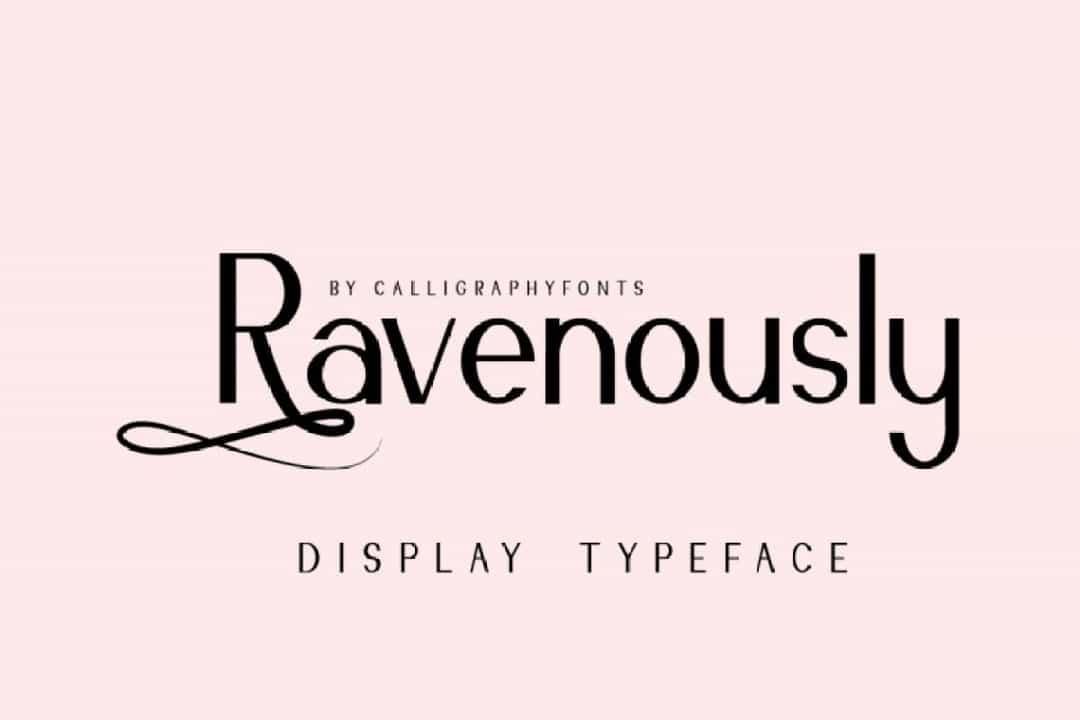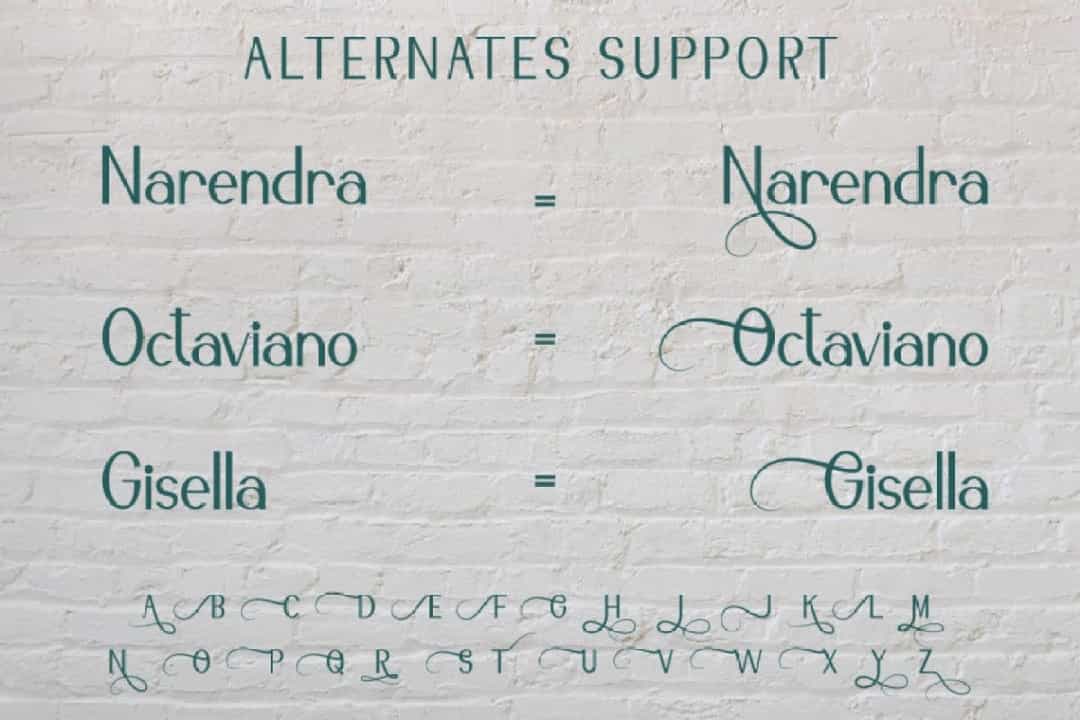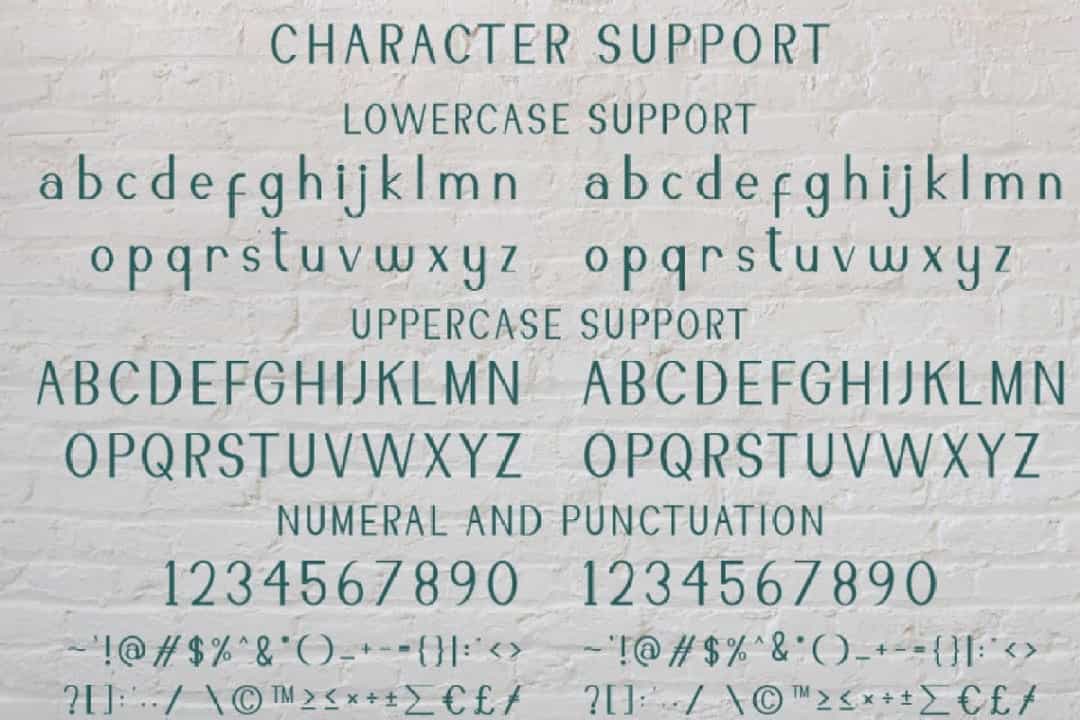
Ravenously is a Display Sans Serif Font which is quite attractive due to the styling of its design. This font is best described as modern elegant, classy elegant and sophisticated and it is suitable for any project including logo branding, invitations, financial reports and flyers.